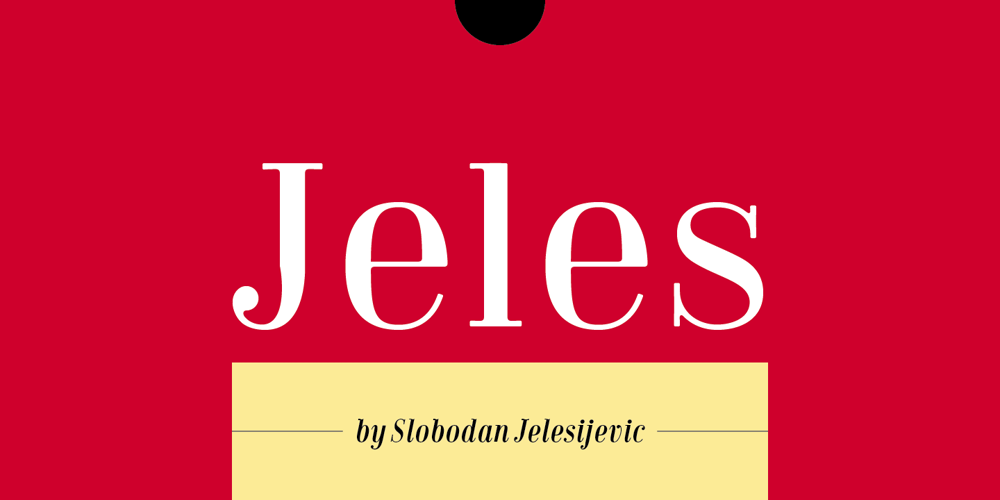
Jeles
Jeles font
Jeles Font Family was designed by Slobodan Jelesijevic and published by Tour De Force. Jeles contains 7 styles and family package options. Inheriting the beauty and style of old type classics from this genre, Jeles is blended with very elegant modern approach featuring soft corners, round slab serifs and tasty ball terminals. Jeles is designed mostly for display use and it is highly recommended to get the whole family if you want to get the best result. It is designed in two styles Condensed and Normal. The Condensed version is developed in two weights each coming with corresponding italics. While the Normal styles are three ranging from Regular, Bold and Black. The total of 7 separate fonts inside the family are quite enough if you look for diversity and flexibility at one place. You could use the uprights for more serious and strong headlines while the Italics work perfectly for more fresh and live subheads. Of course editorial design is only one of the many directions where Jeles family could be used successfully as we all know typefaces with so visible contrast between thin and thick and combined with classic elegance, could be easily used in every design of cosmetic industry, fashion, food, jewelry, etc. Try to design a stylish boutique shop signboard and you will surely discover its beauty and potential. Easy-to-read, it is good for print design, revealing its authentic letterpress-like character as well as perfect for screen use note that the thin strokes and serifs are not that thin to vanish on a low resolution monitor. Professionally designed, they are solid enough yet very elegant and even gentle making Jeles a desired family design of attractive web banners, web sites, apps and e-books.